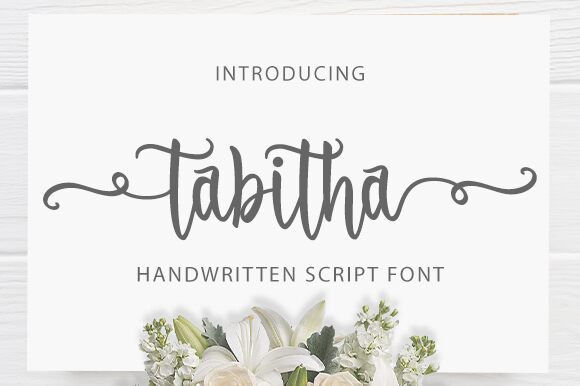
Tabitha
Tabitha, a handwritten script font designed by Aldi Raya Pradipta, is perfect for any project- from logos to invitations. With its unique style, Tabitha will make your designs stand out.